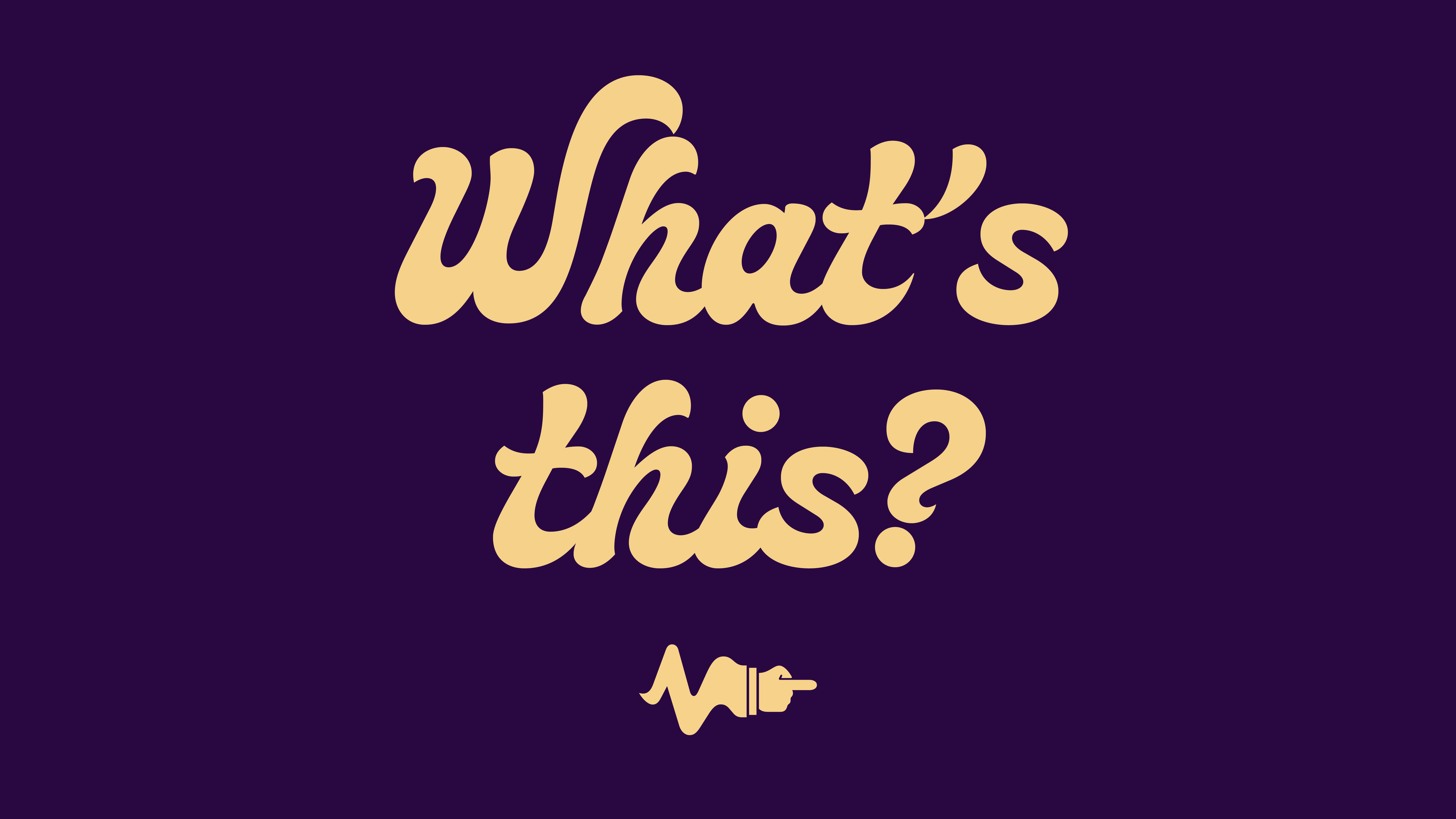
F37 Daydreanne
Straight from the talented hands of letting artist, Oli Frape. His long awaited first commercially available typeface is finally here.
Based off Oli’s logo, F37 Daydreanne has all the life and vibrancy of his lettering style thoughtfully restrained to work as a typeface. The font is an organic, brush lettering script style, with bottom-heavy letter forms and succulent terminals. These features give it an unctuous quality perfect for packaging and lively headlines. F37 Daydreanne also includes 20+ ligatures and symbols.
F37 Daydreanne
Tell us about the inspiration behind your collaboration with F37®×. If it was an unused concept, what was the potential use case for it.
My font is an expression of my go-to friendly script lettering style. I’ve created lots of different lettering and logotype work over the years which has it’s basis in something akin to my Daydreanne font - these projects are always custom, so the font creates a more generic but no less friendly way to create headlines and logotypes in a similar style.
When starting the process of creating your font, what typographic conventions did you look to break or experiment with? Or were there conventions of functionality you championed?
This is my first commercial font and since I was clear from the start that I wanted to create something cursive, I needed to do some research into the best approach for creating cursive joins that keep the flow of the lettering and maintain a certain consistency.
Now that your typeface has launched, what would be your dream project to use your F37® typeface on?
Daydreanne is a friendly and engaging font at heart, so any project in search of a font that was warm, charming and conversational could find good use for it but as always for me its great to see things recreated at large scale or in large quantities - so something that ended up on billboards or packaging would be exciting.
What have you learnt through developing and creating your own typeface(s) with our F37® type designers?
Working with the team at F37 has been a really collaborative experience and I’ve learnt a lot - not only through the process of drawing the glyph sets and thinking about their cursive functionality but also in discussing that functionality and the finer parts of the development process with the designers.
How would you describe your typeface in three words?
Friendly, charming, conversational.